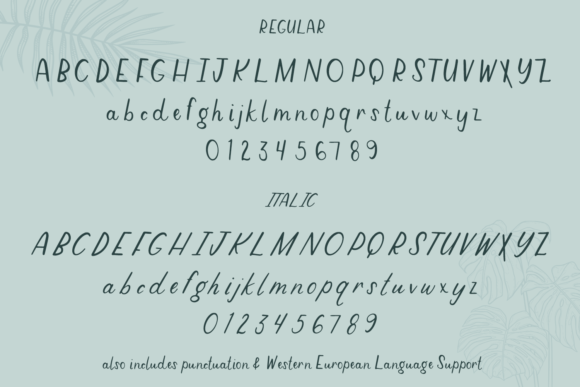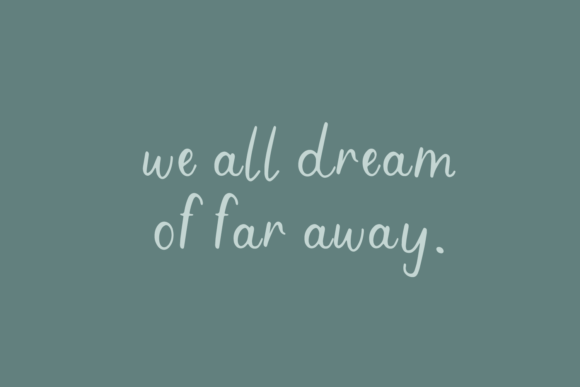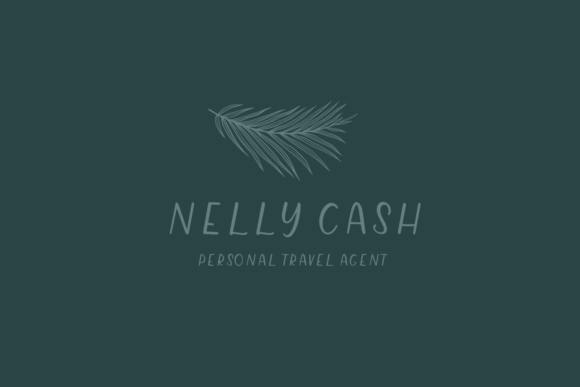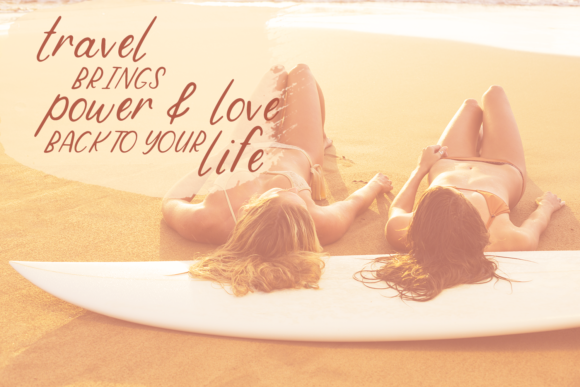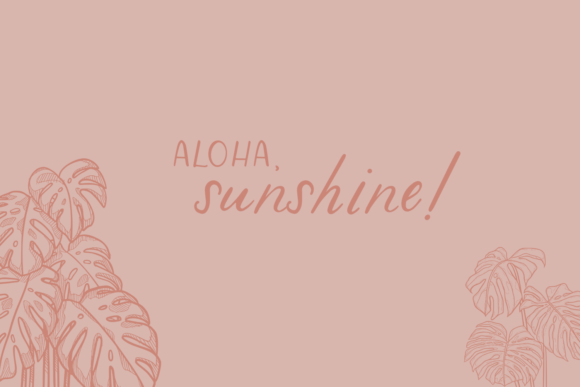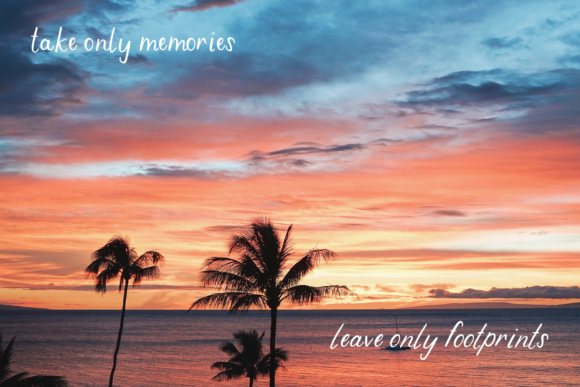
Molokai Font
About Molokai Font
MolokaiĀ is a cute and simple lettered duo styled handwritten font. It can be used for all chalkboard quotes or teaching material! Its authentic look will add a personal and realistic feel to your designs.